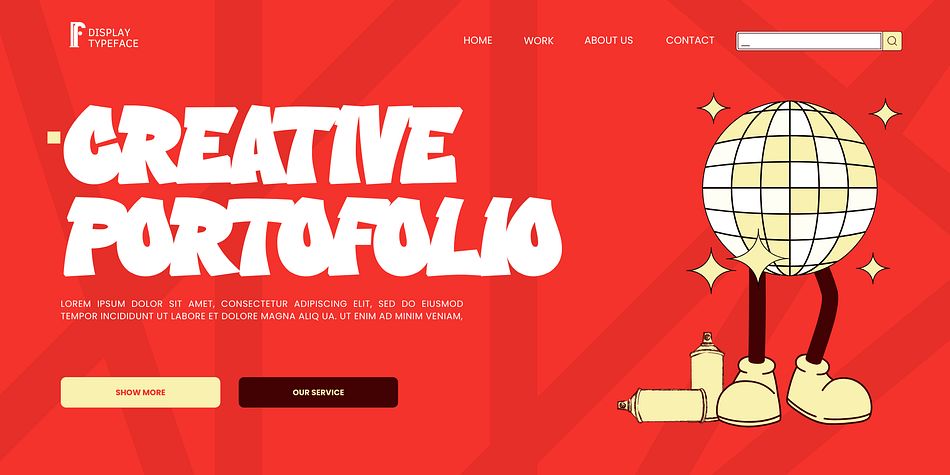
Crysh Graffiti
Crysh Graffiti is a kids font family. This typeface has three styles and was published by Fitrah Type.
Crysh Graffiti is the newest typeface with a simple graffiti style. There are three styles of font. Regular, extrude, and line styles Inspired by a simple piece of graffiti. The entire typography has been designed to work on large sizes. This font is good to use on posters, zines, stickers, and t-shirts.